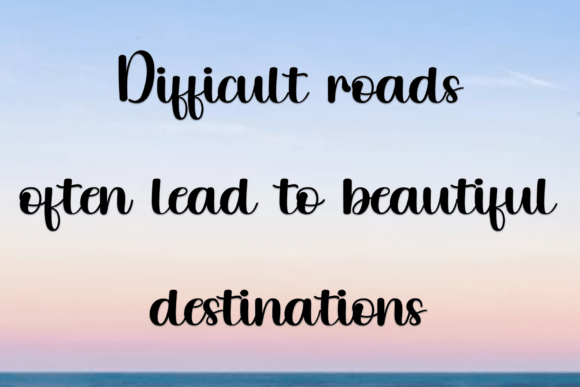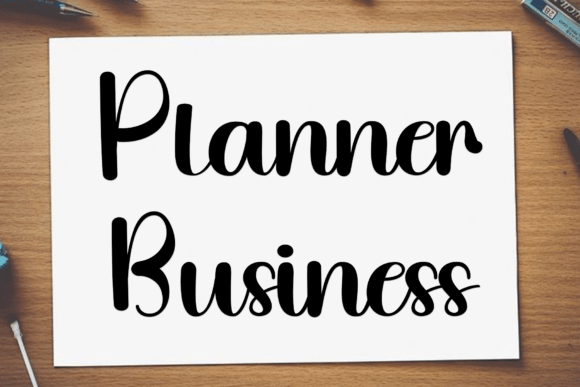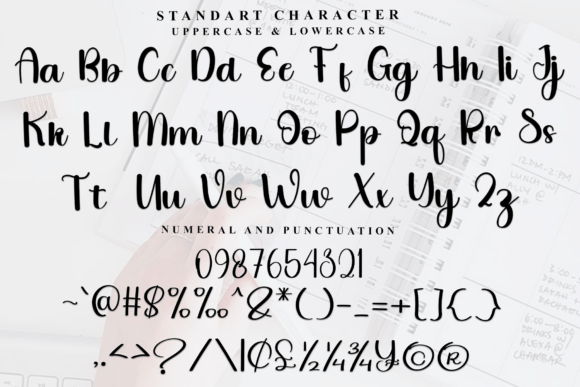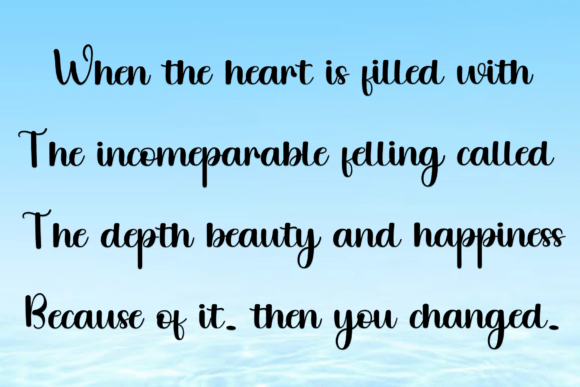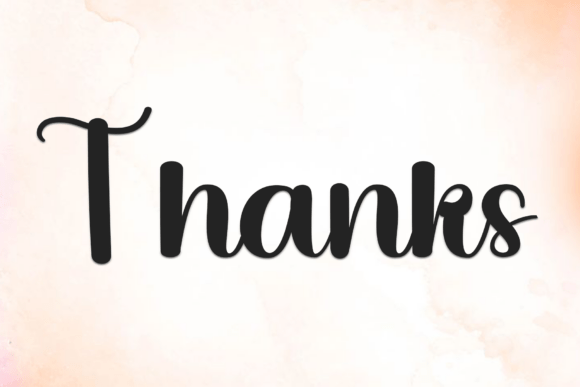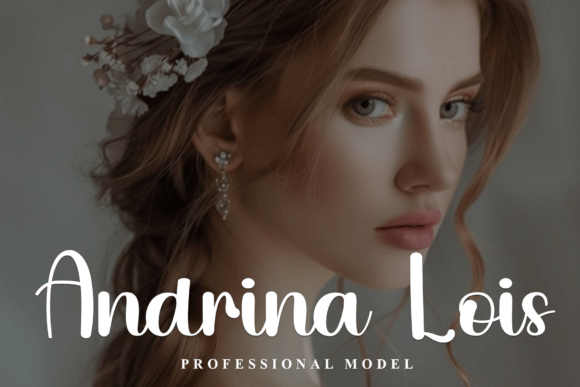
Discover the Charm of Happy Yesterday Font: Elevate Your Designs with a Unique Touch
In the world of typography, fonts play a crucial role in conveying messages, evoking emotions, and adding personality to designs. Among the myriad of fonts available, Happy Yesterday stands out with its soft, unique touch and distinctive strokes, making it a perfect choice for designers, crafters, and creatives looking to add a special character to their projects.
The Unique Appeal of Happy Yesterday Font
Happy Yesterday is more than just a font; it’s a design element that brings a touch of elegance and whimsy to any project. Its soft and unique strokes give it a special character, making it both meaningful and versatile. Whether you’re working on a design project, crafting a personal masterpiece, or exploring your creativity, Happy Yesterday offers a wide range of possibilities.
One of the standout features of Happy Yesterday is its collection of various characters. This diversity allows designers to experiment with different styles and expressions, ensuring that their work stands out. The font’s distinctive strokes not only add a touch of uniqueness but also contribute to its readability and aesthetic appeal.
Versatility Across Creative Fields
The versatility of Happy Yesterday makes it an ideal choice for a wide range of creative projects. Whether you’re designing a logo, crafting a handmade card, or working on a large-scale design project, this font adapts seamlessly. Its natural style and soft touch make it perfect for projects that require a personal and artistic approach.
Enhance Your Designs with Happy Yesterday
Incorporating Happy Yesterday into your designs can significantly enhance their appeal. The font’s unique touch and soft strokes make it a magnet for audiences across different artistic and creative fields. Whether you’re targeting a young audience or adults, Happy Yesterday’s charm is sure to captivate.
For designers, the ability to create visually appealing and engaging content is paramount. Happy Yesterday offers a fresh and distinctive style that can elevate your designs, making them more engaging and memorable. Its use can lead to increased audience interaction, as the unique and soft touch of the font resonates with viewers.
Practical Applications of Happy Yesterday Font
The practical applications of Happy Yesterday are vast. Here are a few ways designers and crafters can utilize this beautiful font:
- Logo Design: Add a unique touch to your brand’s logo, making it stand out in the market.
- Handmade Crafts: Perfect for crafting personalized cards, invitations, and other handmade projects.
- Digital Designs: Use it in digital marketing materials, social media posts, and website designs to add a personal touch.
- Print Materials: Ideal for brochures, flyers, posters, and any print material that requires a distinctive style.
Happy Yesterday Font is a beautiful and eye-catching addition to any design project. Its soft, unique touch and distinctive strokes offer a special character that can make your designs more meaningful and versatile. Compatible with various applications and perfect for a wide range of products, Happy Yesterday is an excellent choice for designers and crafters looking to elevate their creative work.
Whether you’re a professional designer or a hobbyist crafter, Happy Yesterday Font opens up a world of possibilities for creative expression. Its charm and versatility make it an invaluable resource for anyone looking to add a unique touch to their projects. Discover the beauty of Happy Yesterday and let it transform your designs into captivating works of art.